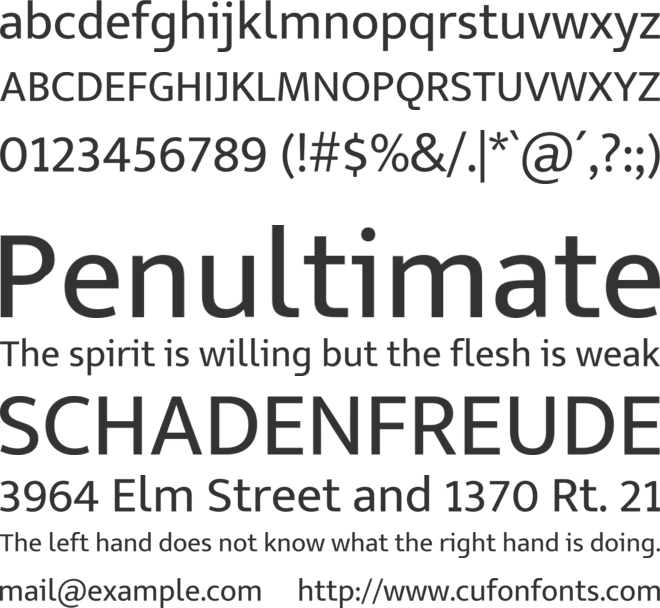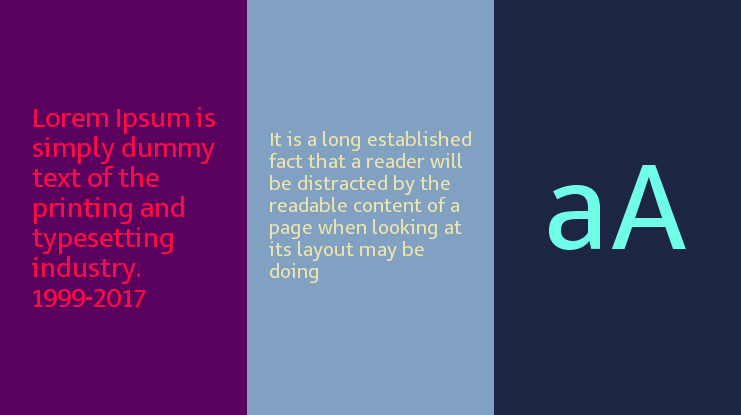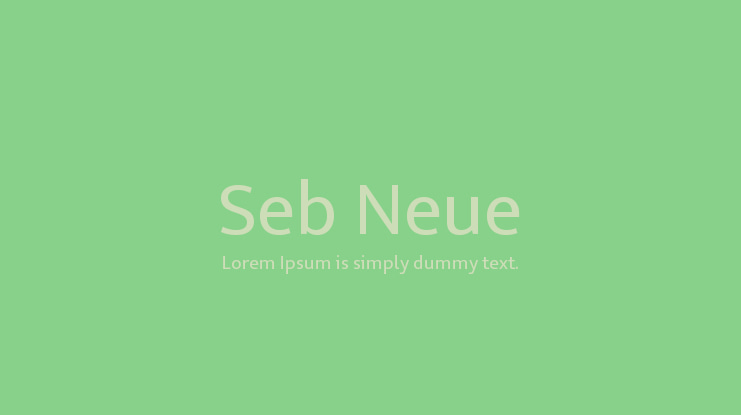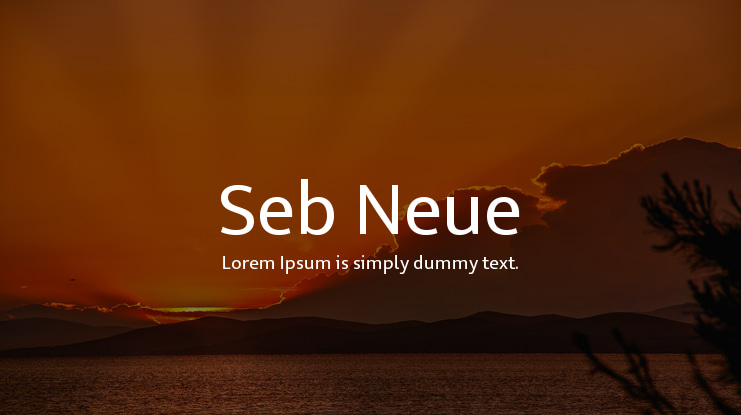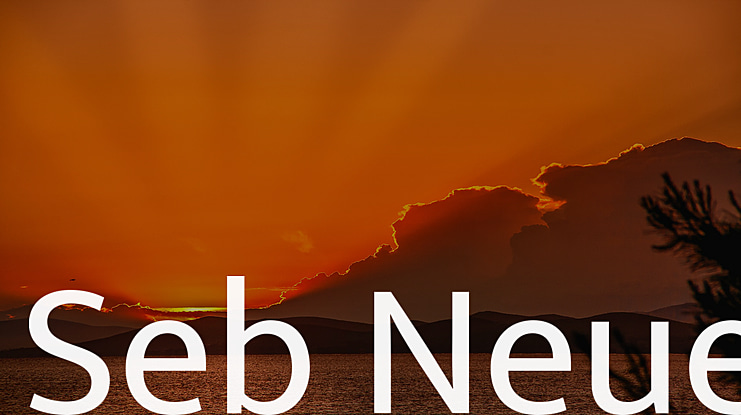
Seb Neue Font Family
Seb Neue typeface is a modern sans serif typeface designed for Sebgarry Design Studio. It has 12 weights making it a very versatile typeface for your designs. It is free for both commercial and PERSONAL PROJECTS